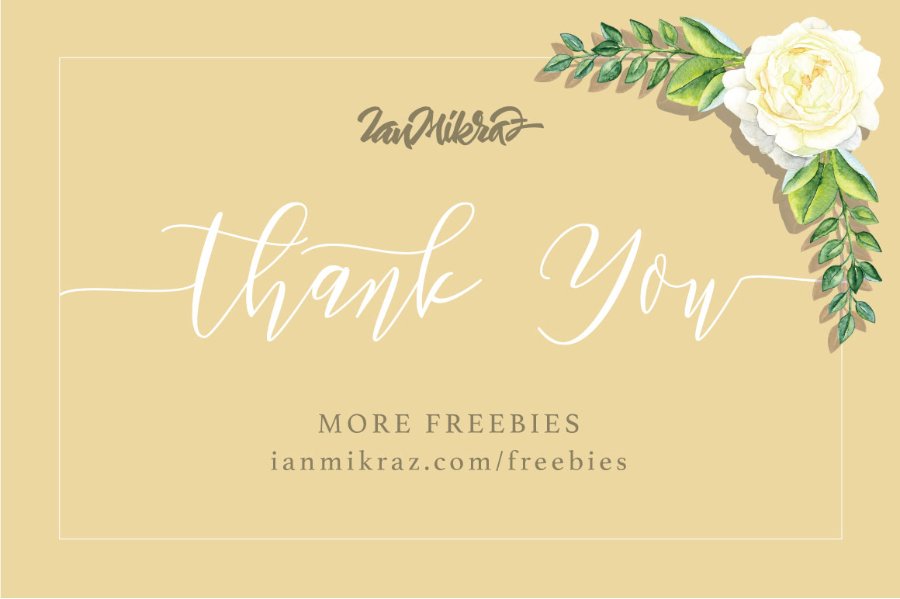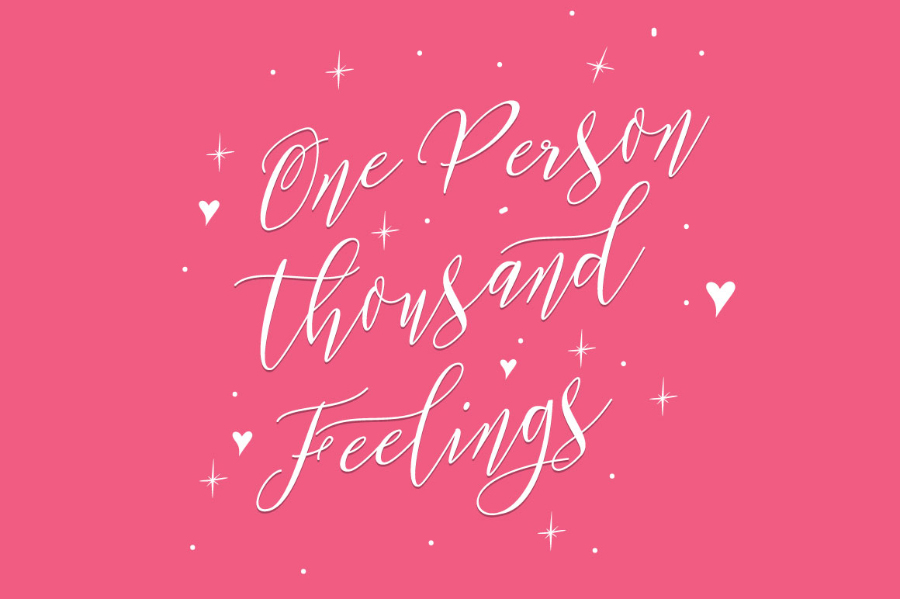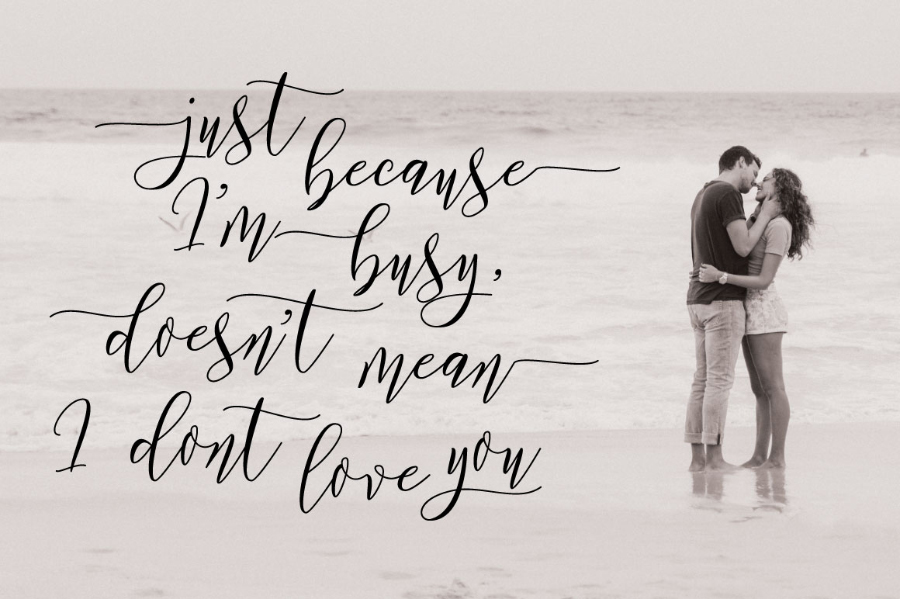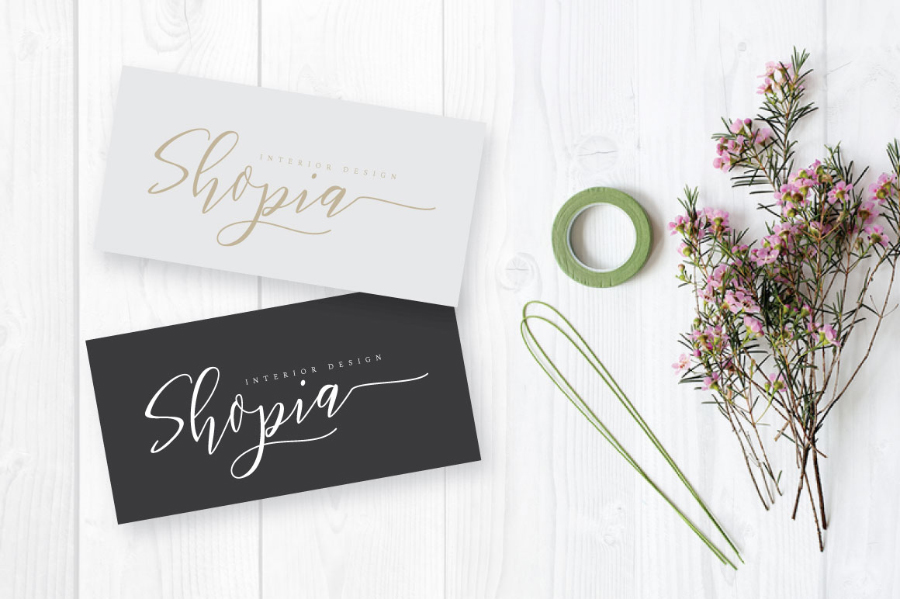
Fruitilla Modern Script Free Typeface
Fruitilla Modern Script Free Typeface is a new calligraphy Typeface Fonts collection from Ianmikraz studio. It combines from copperplate to contemporary typeface, classic, beauty, and elegant touch. Frutilla Script Free Typeface features 277 glyphs and 86 alternate characters contain opentype features. Swash Alternates, Stylistic Alternates, Standart Ligature and more. You can access all those alternate characters by using OpenType savvy programs such as Adobe Illustrator, Adobe InDesign, and CorelDraw X6-X7. Frutilla is suitable for Apparel Brand, any greeting cards, Painting design style, or any design that needs a natural and personal touch. Mix and match the alternate characters to add an attractive message to your design.